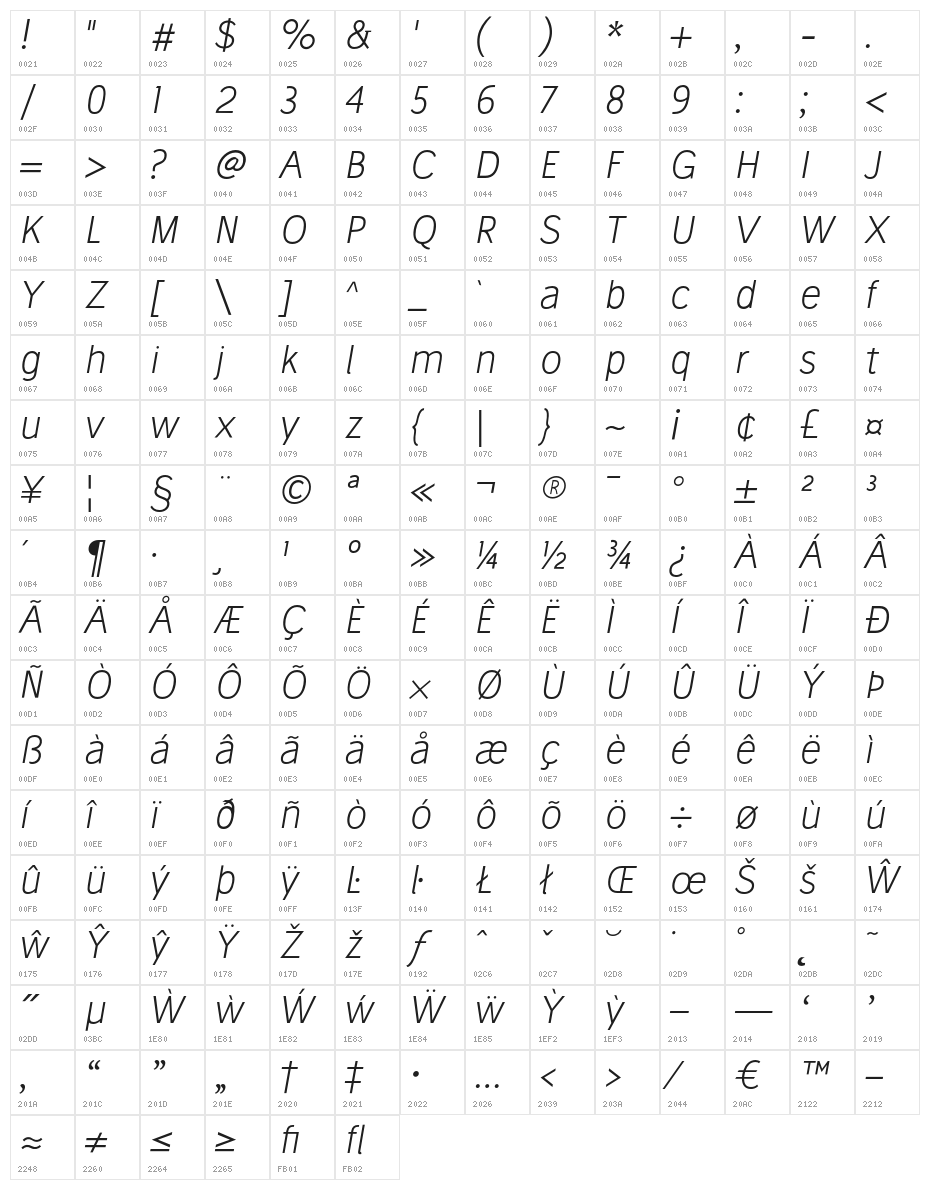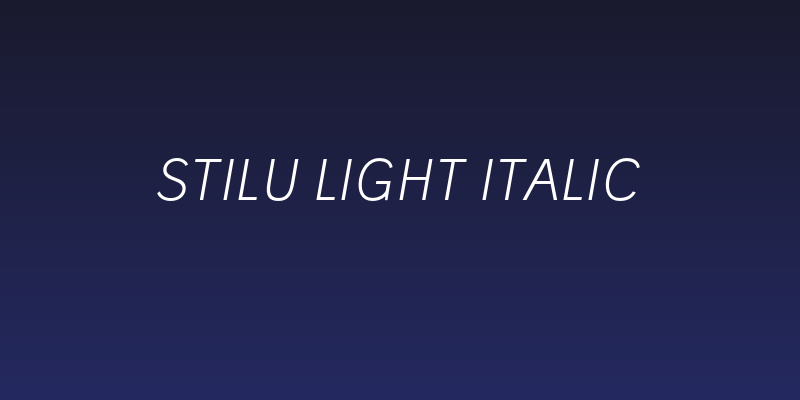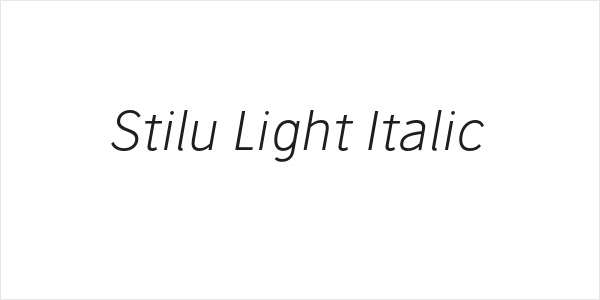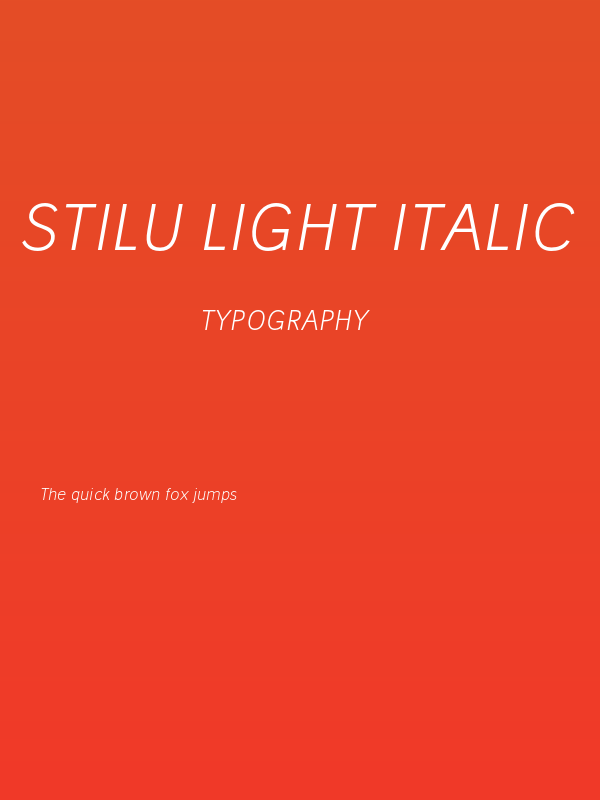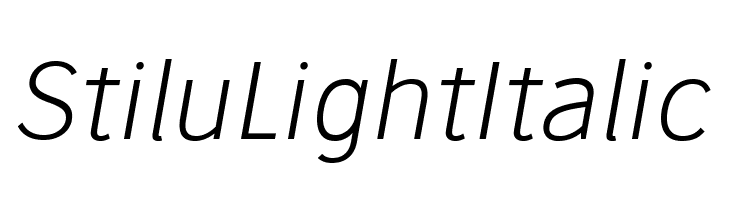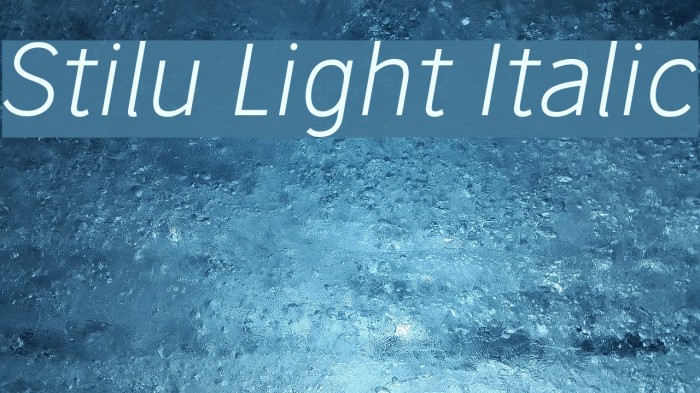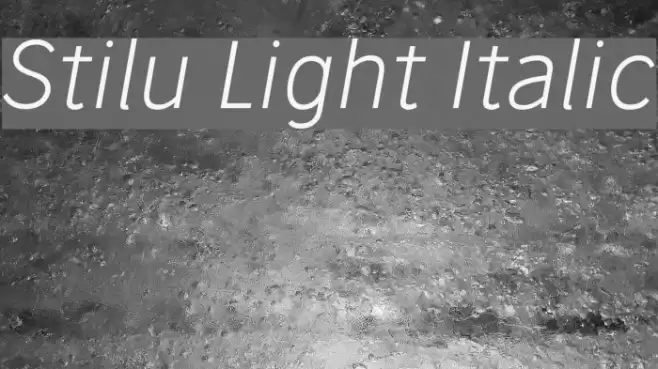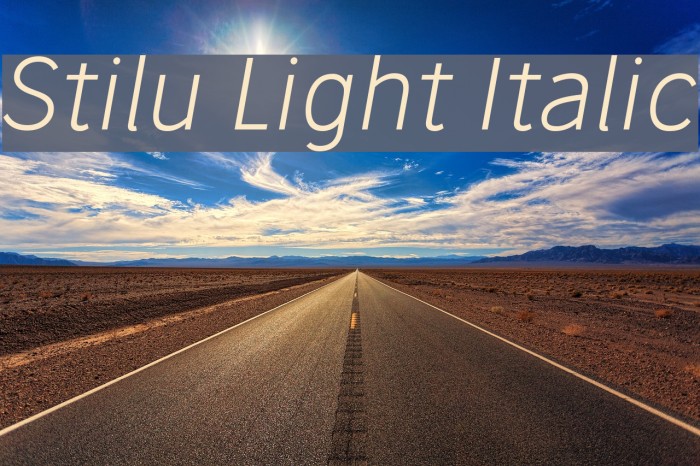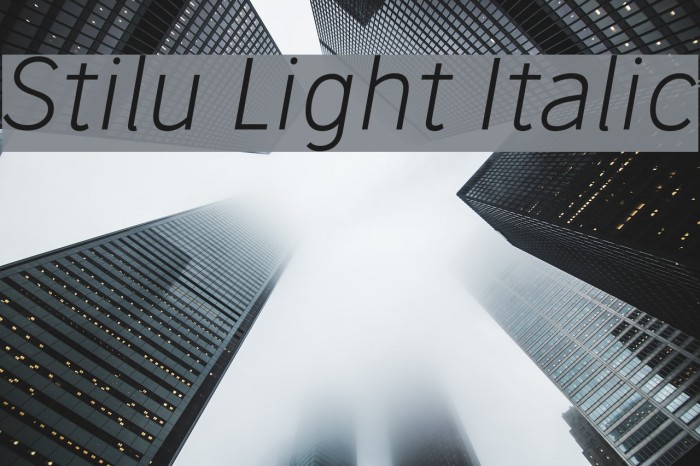
Stilu Light Italic Font
Stilu Light Italic Description
This font features a sleek and modern design with a light weight and italic style. The characters are elegantly slanted, providing a sense of motion and fluidity. The sans-serif nature of the font ensures clean lines and a minimalist aesthetic, making it highly readable. The spacing between characters is normal, allowing for clarity and ease of reading. The numbers and special characters maintain the same stylistic approach, ensuring consistency across all elements. This font is versatile, suitable for various applications where a contemporary and sophisticated look is desired.
Genilson L. Santos
| Use Case | Headlines, Body text, Logos |
| Proposed Projects | Ideal for modern branding, editorial design, digital content, and minimalist websites. |